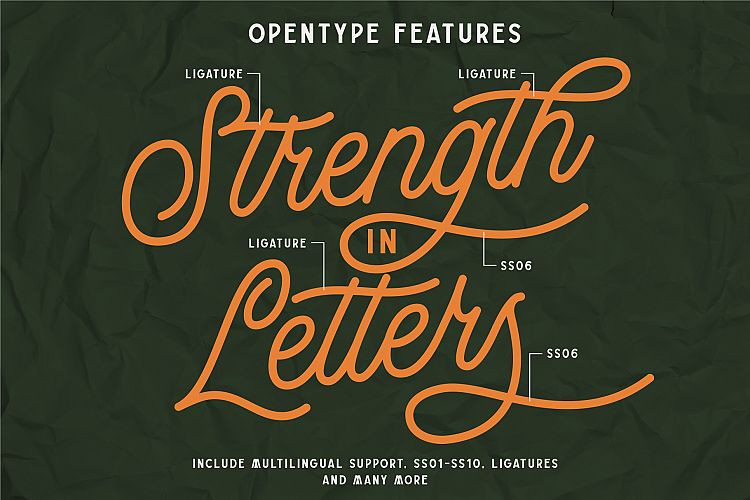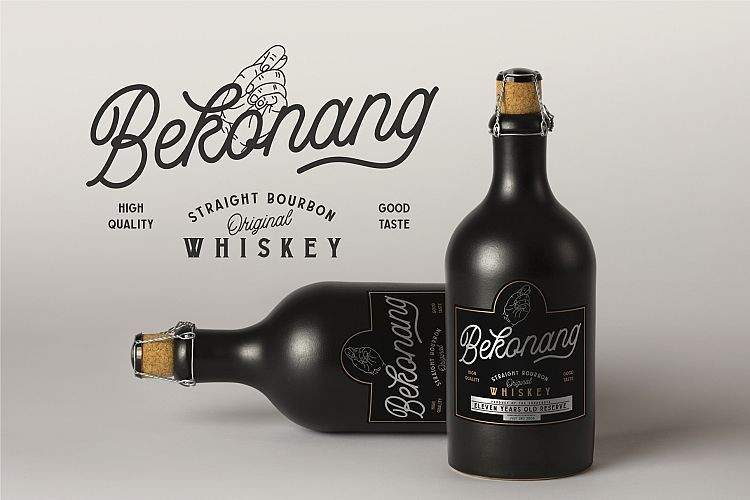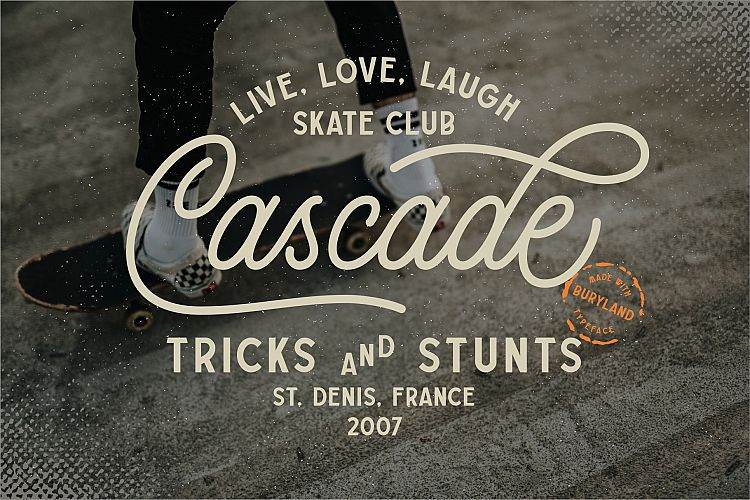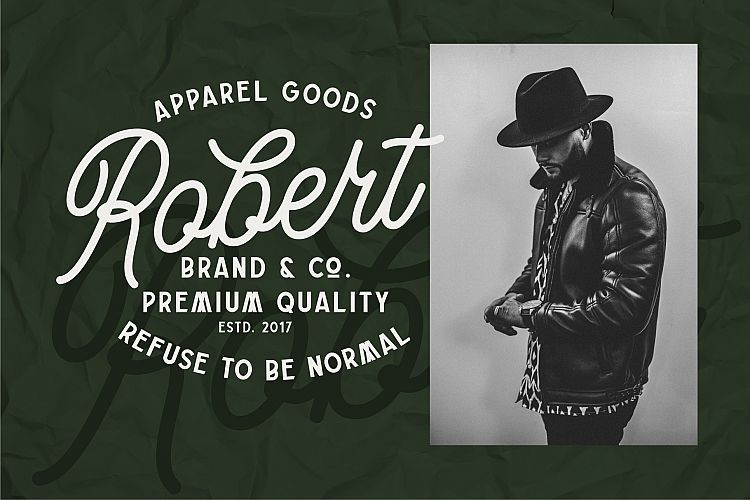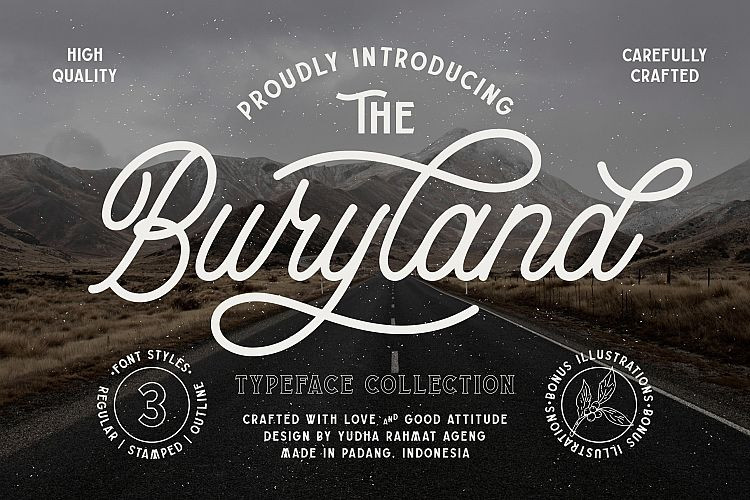
Buryland Script Font
Introducing Buryland Font. This monoline typeface will bring you to the good ol’ days with its classic touch! Made carefully to create perfect suitable for each of your projects. It’s Handmade Script, Sans, Serif inspired by Retro and Modern hand lettering style, so you can use this font into any style of your design. It’s has three styles for each font, Regular, Stamped, and Outline.
Buryland also has a standart Multilingual Support. With bonus illustration in this package, this fonts are great for Logotype, Branding Design, Logo Design, Digital Lettering Arts, Instagram Design, T-Shirt/Apparel, Badge, Packaging, Poster, Magazine, Book Cover, Quotes, Signs, Advertising Design, and any design needs.